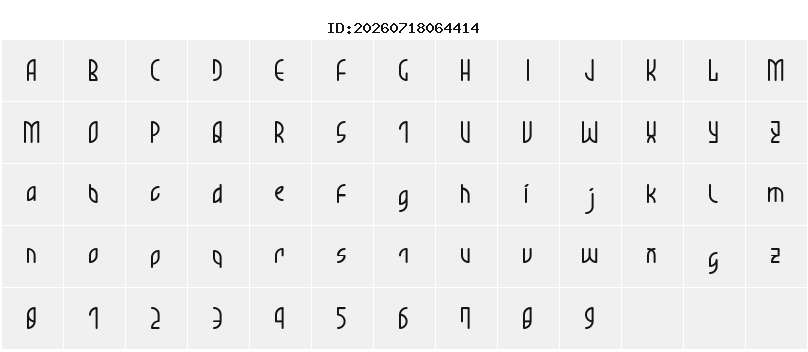
• Font Name: Cherryblossom
• Font Style: ver2
• Full Font Name: Cherryblossom ver2
About Cherryblossom.ttf
Cherryblossom.ttf is a modern, elegant sans-serif font designed for ultimate readability and visual harmony. Perfect for branding, headlines, web design, and print materials.